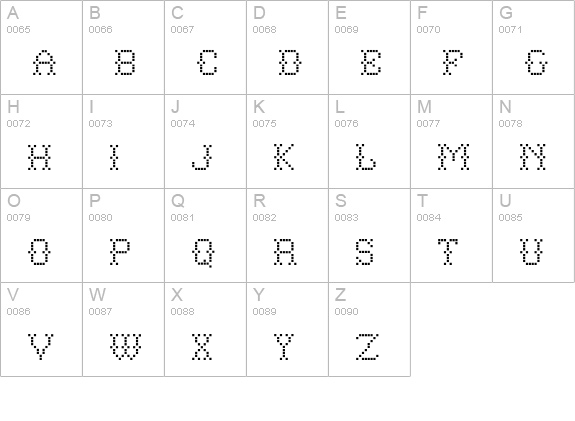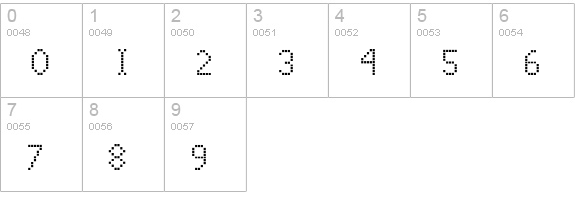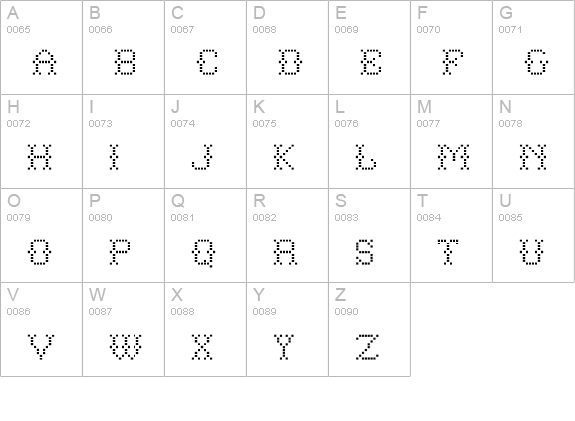
P22FolkArt-Square Font Details
P22FolkArt-Square is a captivating font that effortlessly captures the essence of traditional folk art. With its square-shaped letters and intricate details, this font brings a touch of rustic charm to any design project. Each letter is meticulously crafted, combining elements of hand-drawn artwork and decorative motifs to create a truly unique typeface. This font is ideal for adding a whimsical touch to various design applications, such as invitations, posters, packaging, and more. Its versatile nature allows it to seamlessly blend with both modern and vintage aesthetics, making it a valuable addition to any designer's toolkit. One of the most remarkable aspects of P22FolkArt-Square is that it is freely available to download at FontsMarket.com. This means that you can easily access this stunning font without any cost, making it a perfect choice for budget-conscious creators. Whether you are a professional designer or simply someone looking to add a touch of creativity to your personal projects, P22FolkArt-Square is a font that will undoubtedly inspire and delight. With its unparalleled charm and the convenience of being freely available, P22FolkArt-Square is an excellent choice for anyone seeking to infuse their designs with a touch of folk art beauty. Don't miss the opportunity to experience this captivating font and let your creativity flourish. Download P22FolkArt-Square today at FontsMarket.com and unleash the full potential of your design projects.